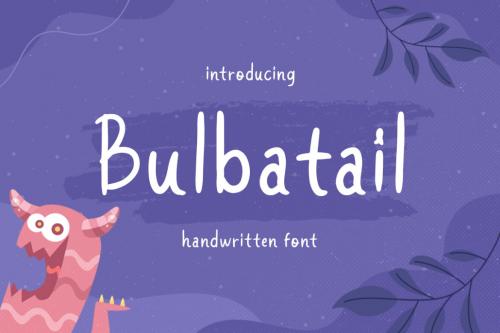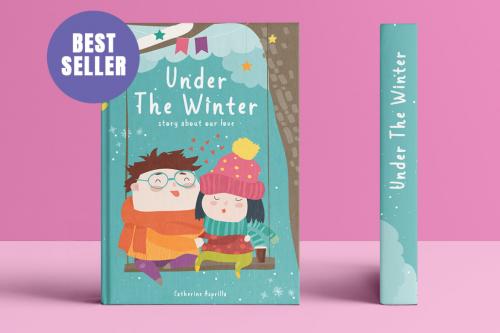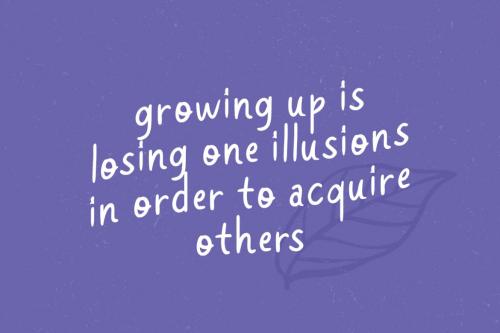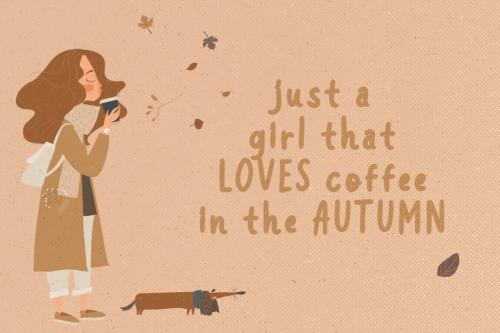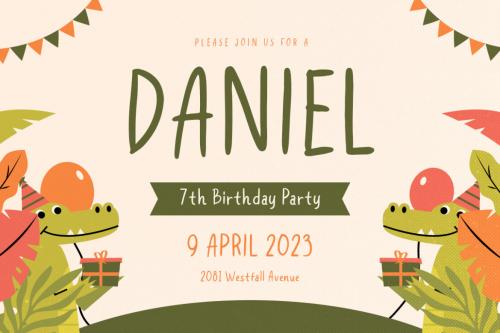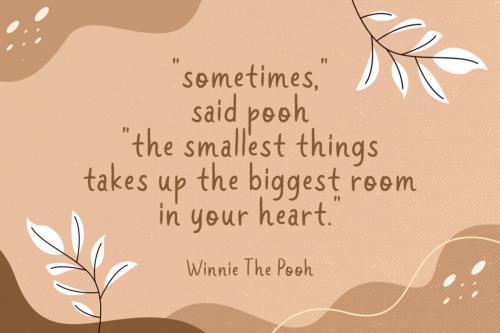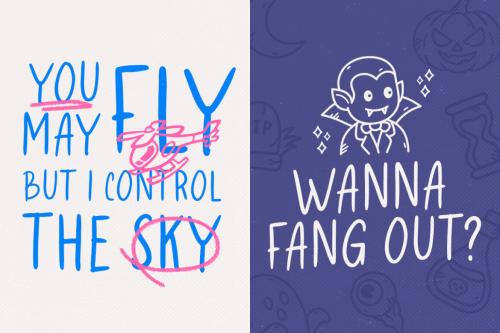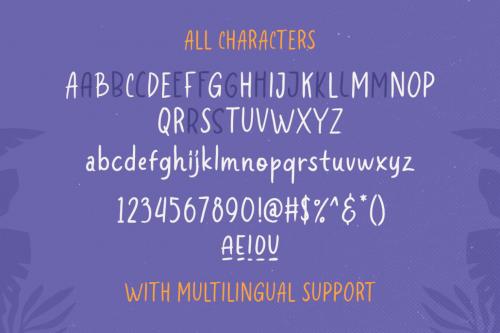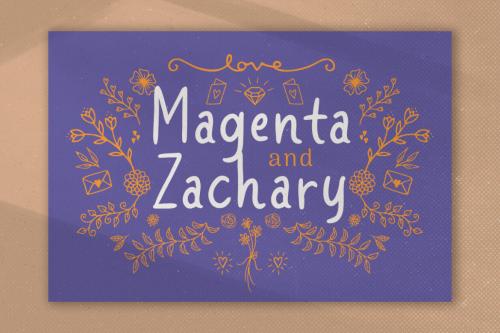
Introducing, Bulbatail - a cute hand writing with casual looks. This type of font perfectly made to be applied especially in logo, and the other various formal forms such as invitations, labels, logos, magazines, books, greeting u002F wedding cards, packaging, fashion, make up, stationery, novels, labels or any type of advertising purpose.